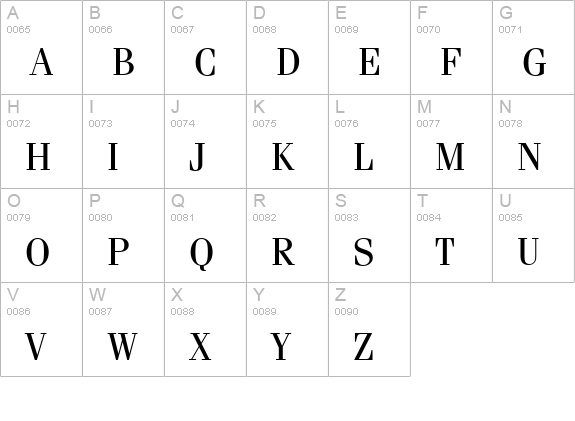
Ferrara-Osf-Regular is the standard, neutral variant in the Ferrara typeface family \xE2\x80\x94 well suited to general body text, paragraphs, and standard typographic work.
Ferrara-Osf-Regular is a modern and stylish font that exudes elegance and sophistication. With its clean lines and classic design, this typeface is perfect for a wide range of projects, from branding to editorial design. The versatility of Ferrara-Osf-Regular makes it a popular choice among designers looking to add a touch of refinement to their work. One of the best features of Ferrara-Osf-Regular is that it is available for free download at FontsMarket.com. This means that you can easily access this high-quality font without having to worry about any additional costs. Whether you are a professional designer or just starting out, Ferrara-Osf-Regular is a great addition to your font library. Its timeless appeal and easy-to-read style make it a go-to choice for any project that requires a touch of sophistication. Overall, Ferrara-Osf-Regular is a must-have font for anyone looking to elevate their design projects. Download it for free today at FontsMarket.com and see for yourself the impact this font can have on your work.